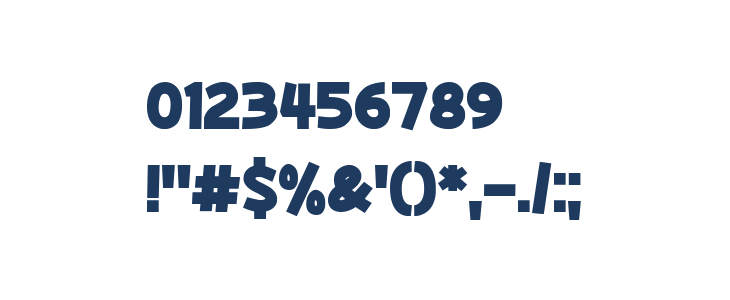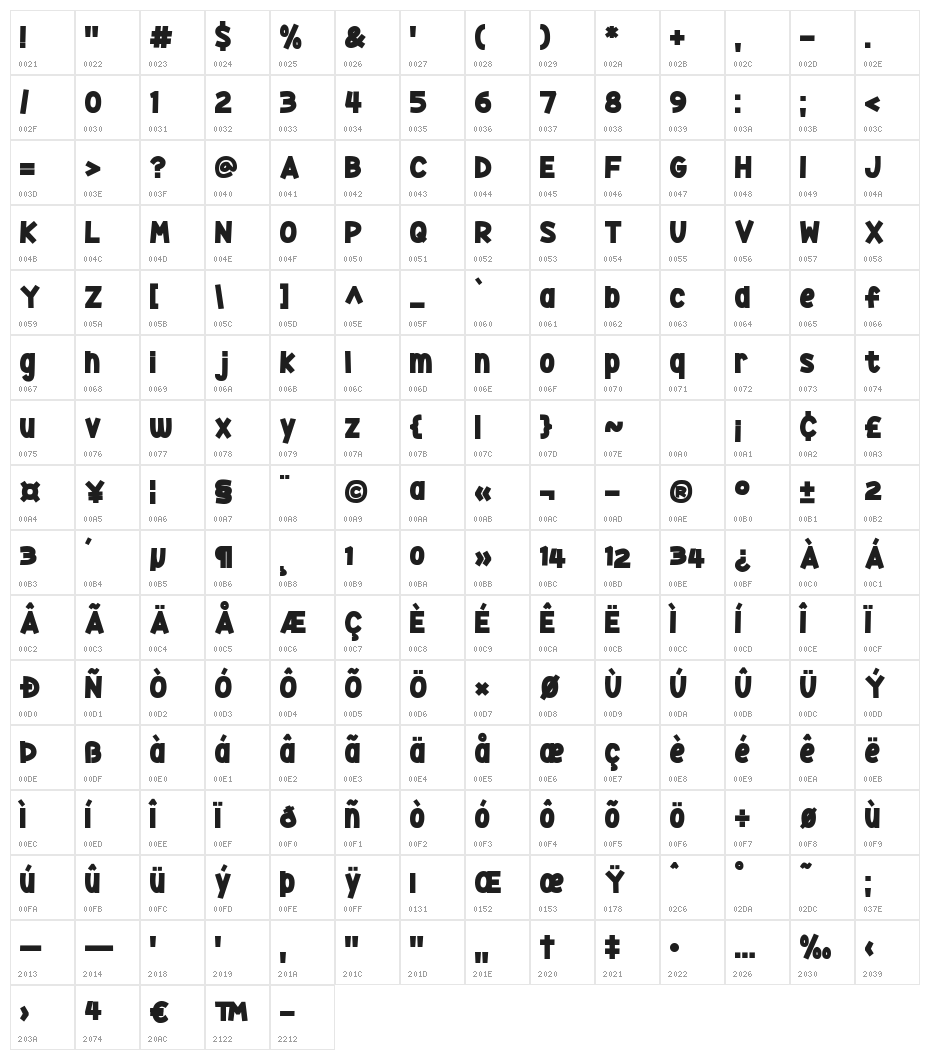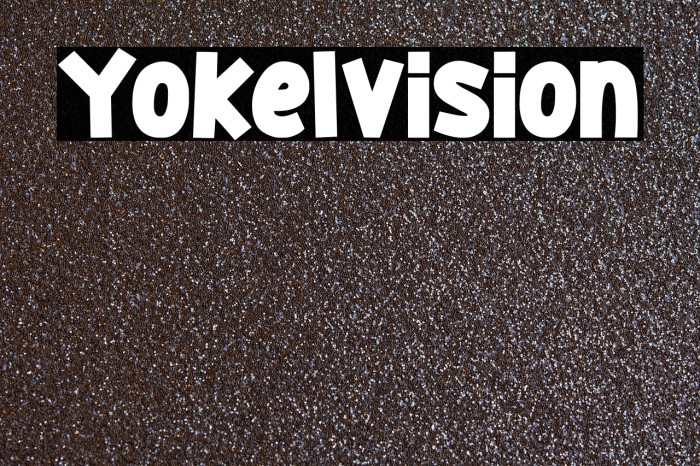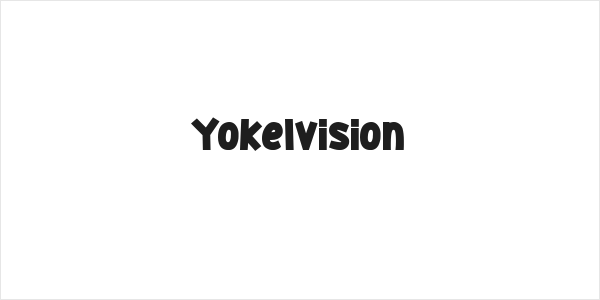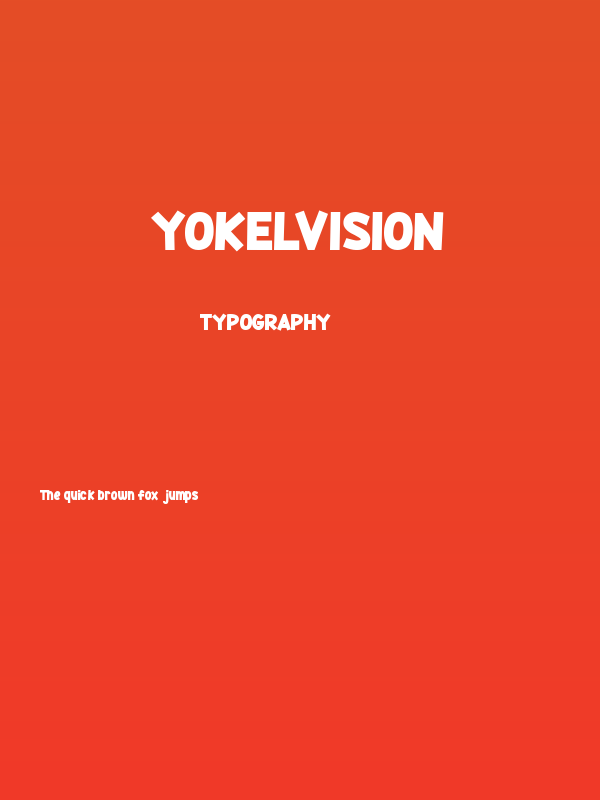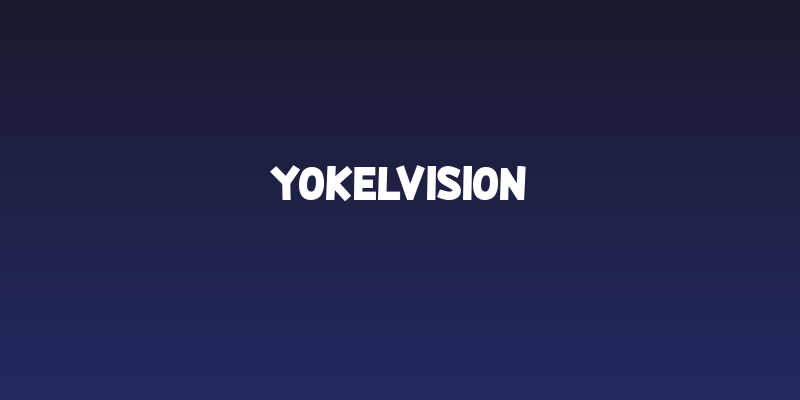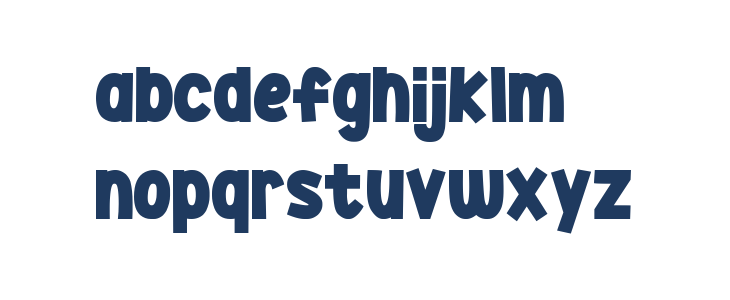
Yokelvision Font
Yokelvision Description
This font features bold, playful characters with a slightly irregular and whimsical style. The letters are thick and rounded, giving them a friendly and approachable appearance. The uppercase and lowercase letters maintain a consistent weight, contributing to a cohesive look. The numbers and special characters share the same boldness and playful design, making them stand out. The overall style is reminiscent of hand-drawn or cartoonish fonts, suitable for projects that require a fun and lively touch. The character spacing is normal, allowing for easy readability while maintaining the font's unique personality.
| Proposed Projects | Ideal for children's books, comic strips, playful branding, and posters. |